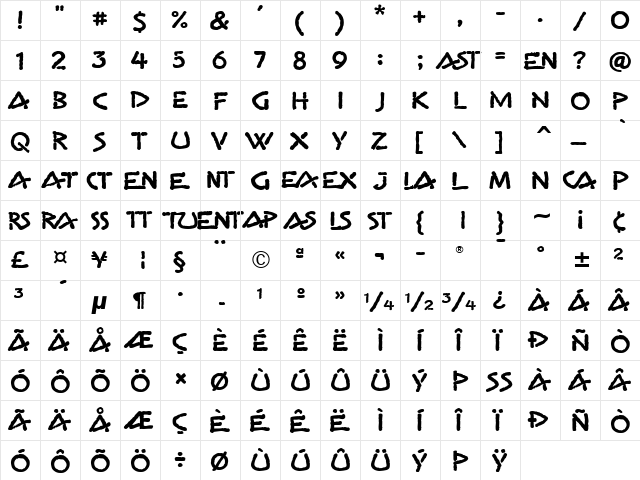
Gema ITC Bold
| Foundry | International Typeface Corporation |
Design Context for Gema ITC Typeface
Gema ITC is a composed and adaptable typeface that performs quietly and consistently across a wide range of design contexts. Its bold stroke weight gives it real presence on the page.